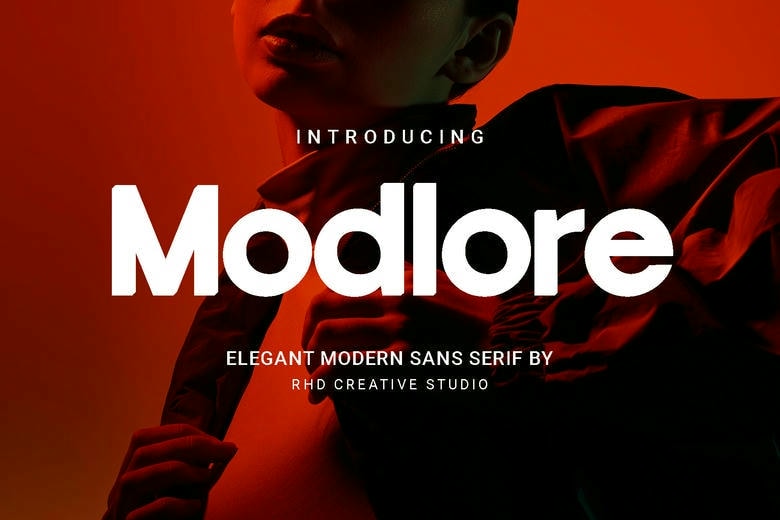
Modlore Font
Modlore is a hard-hitting ultra-modern sans serif font. The Modlore typeface is defined by its heavy, geometrical lines and tight type separation, which makes it undisputable when it comes to bold headlines and stripped down logos. Being a multi-purpose Modlore typeface, it occupies the intermediate position between industrial robustness and high-fashion style, which is why it will be appropriate both in sports apparel and luxury street-wear.
The o of the Modlore font has a very slight internal counter of a slight square which gives a slight touch of flavor to a very traditional structure. The Modlore font gives a solid base whether you are working on a smooth tech site or a spectacular magazine cover. Make the Modlore typeface the loud voice of your next creative project.
Modlore Sans Serif Font